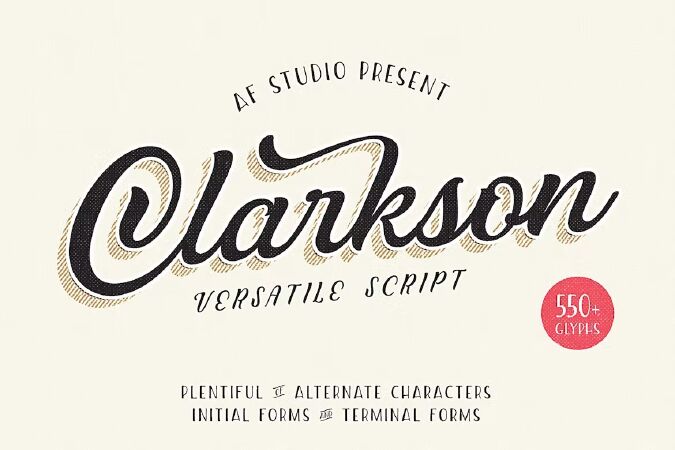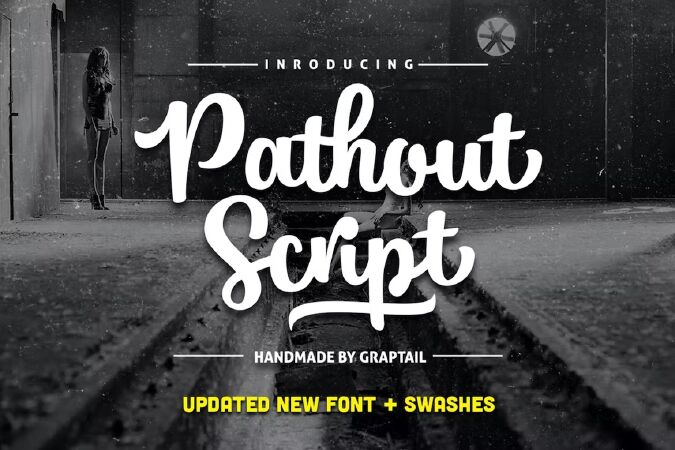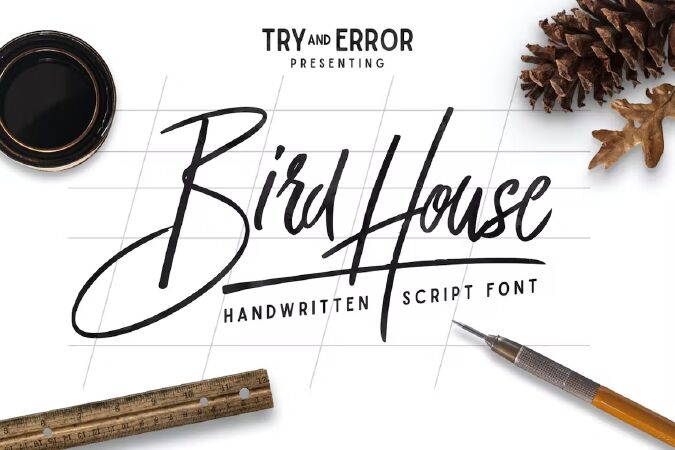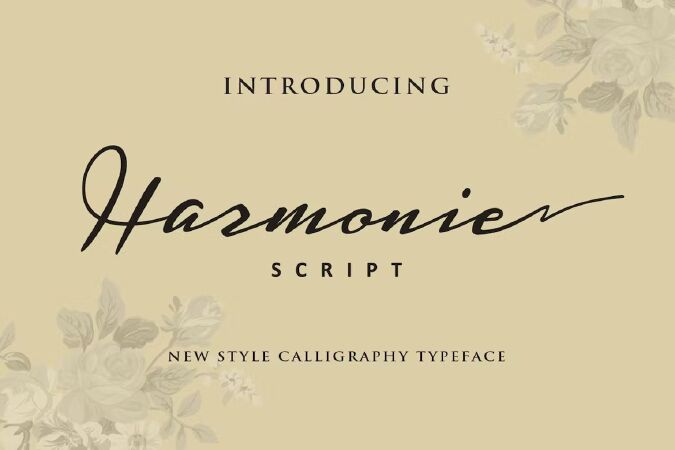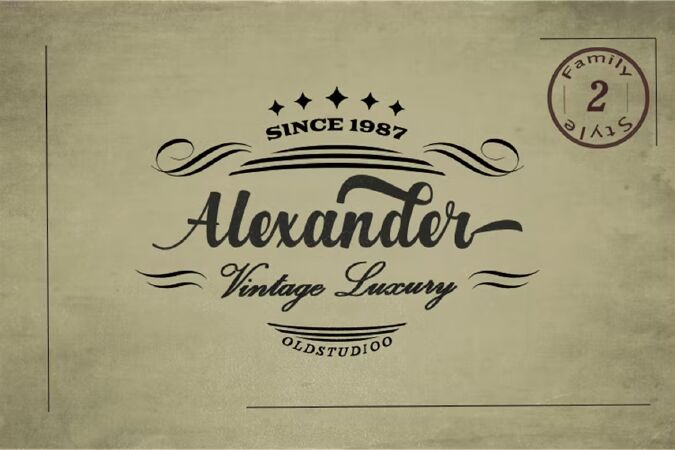
Script fonts combine the elegance of classical calligraphy and handwriting. Script fonts Suitable for Logo, badges, greeting cards, quotes, posters, branding, name card, stationary, design title, art quote, typography, art, modern envelope lettering or book design, happening style like hand-drawn design or watercolor design theme, or any purpose to make our art/design project look pretty and trendy. Before designing or implementing any informational content, you must first choose your font. If you are looking for a more natural feel with casual touch, a good script font is your choice. Here are a few famous examples to get you started.
1 Gineva Script Font
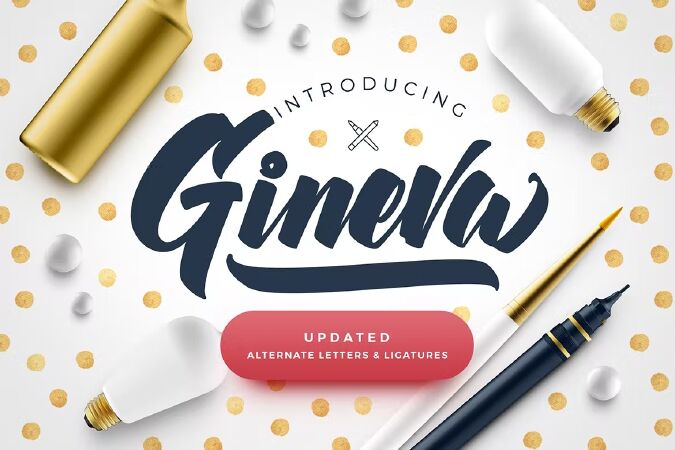
Geneva is a handlettering typeface with a brush style, it’s perfect for latterhead, apparel design, headline, logotype, poster, card, and etc. For folks who have opentype capable software : The alternates are accessible by turning on 'Stylistic Alternates' and 'Ligatures' buttons on in Photoshop's Character panel, or via any software with a glyphs panel, e.g. Adobe Illustrator, Photoshop, Inkscape.
2 Faralista Script Font
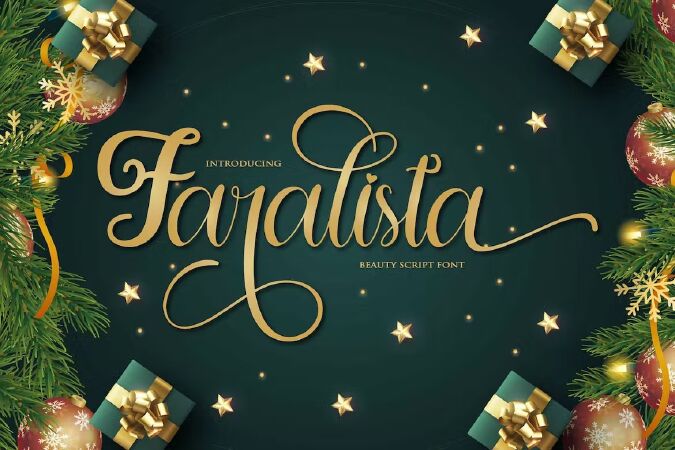
Faralista is a lovely script font. This font can be used for various purposes, including for invitations, weddings, birthdays, fashion, products, feminine, beauty, salon, product packaging, quotes, product designs, crafters, labels, photography, watermarks, t-shirts, logos & branding. Everything can be accessed using software that supports Opentype, such as Adobe Indesign, Adobe CS Illustrator, Adobe Photoshop CC, and Corel Draw.
3 Script Font
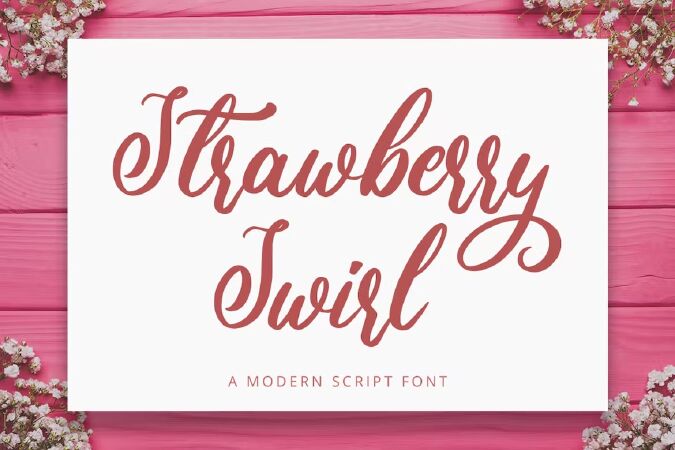
Strawberry Swirl
Imagine a world filled with swirls of strawberry, pops of pink, and pure joy to go around for everyone...
Are you trying to make an elegant, sweet, and stylish statement with your invitations, social media, website, or printed materials? Then grab some cotton candy, crack a smile, and get ready for a swirly day of wonders!
Introducing Strawberry Swirl - A Modern Script Font.
This gorgeous & stylish font can be used for a host of different content needs and projects. Use it for your headings, logos, business cards, printed quotes, invitations (wedding, birthday, engagement, etc.), packaging, resumes, and even your website or social media branding.
Enchant & delight your audience, clients, or guests with this versatile, stylish, and elegant font.
4 Emellie Script Font
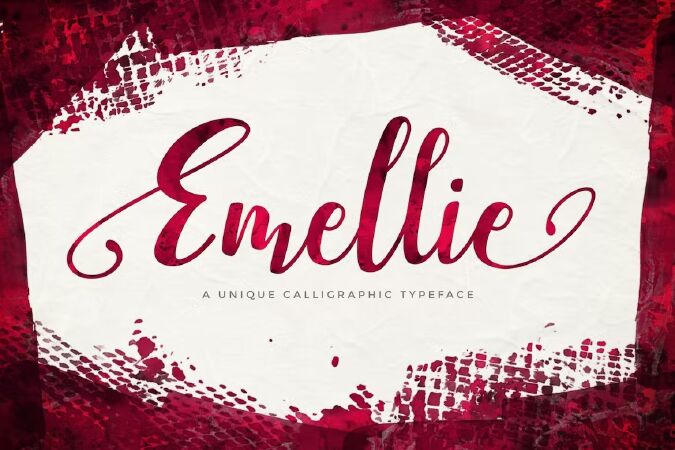
Emellie is unique calligraphic typeface with fun feminine swashes, and is perfect for logos, greeting cards, wedding collateral, and more.
Included are standard Latin characters, uppercase alternates, initial and terminal forms, numbers and symbols, extended Latin characters, and select ligatures.
Emellie is complete and beautiful, and will find itself right at home in any project requiring a script font.
5 Sanös Extended Script Font
The font features both uppercase and lowercase letters, so you will have a wide range of characters to use in typographic work. It has updated open type features and advanced kerning. Multiple language support.
This brush script font works best for fashion, beauty products, food, apparel and magazines. Sanös Free Brush Script Font could also be used for film, television, marketing, advertising and websites. Take your designs to the next level with Sanös Free Brush Font.
6 Moscato Script
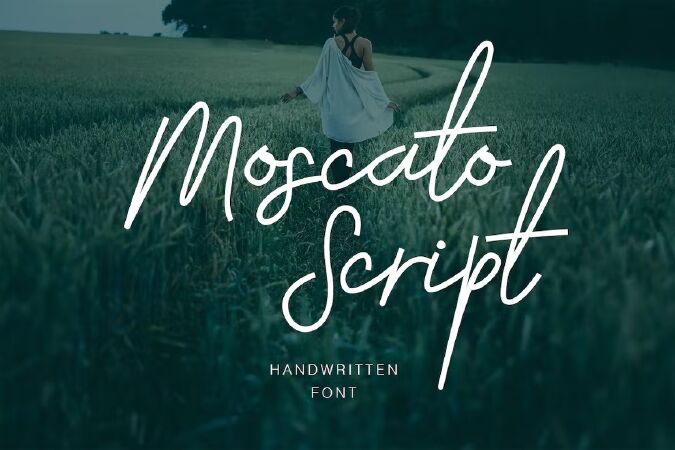
ntroducing Moscato - A dapper handwritten font with a personal touch. Moscato is perfect for many different project ex: quotes, blog header, poster, wedding, branding, logo, fashion, apparel, letter, invitation, stationery, etc.
22 Thornton Script Font
Thornton is a Bold font script that looks elegant when used for your design
Thornton font which is very elegant and modern for you to use and your design interests be it for logos, branding names, posters, podcasts and so on. This is perfect for you all.